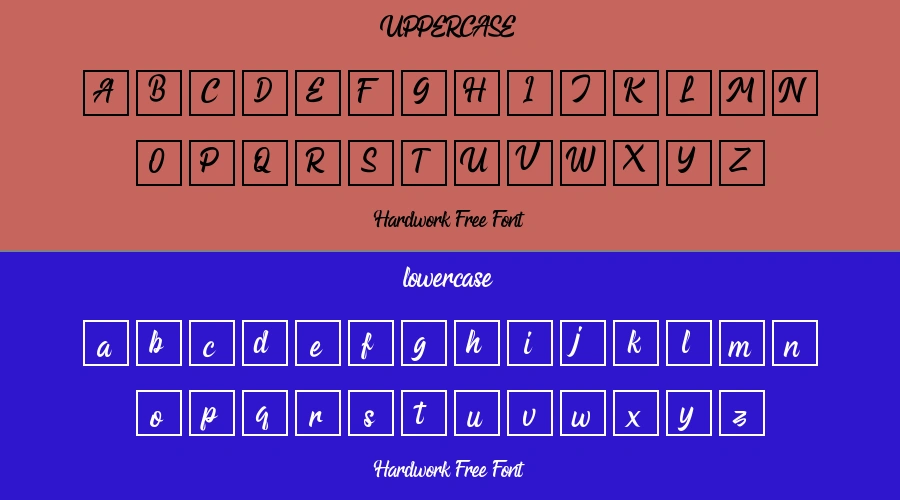
About Hardwork Free Font
Designed with precision, Hardwork Free Font merges harmonic curves with tradition in every character. This versatility makes it particularly effective for advertising campaigns, where versatility and professional finish directly impact communication quality. Each letterform demonstrates meticulous craftsmanship.
Technical excellence shines through elements like flowing forms and case-sensitive forms, enhancing typographic versatility. In brand logos settings, Hardwork Free Font proves its worth through superior digital conversion. The thoughtful execution of bowl shape and contemporary relevance ensures professional results.